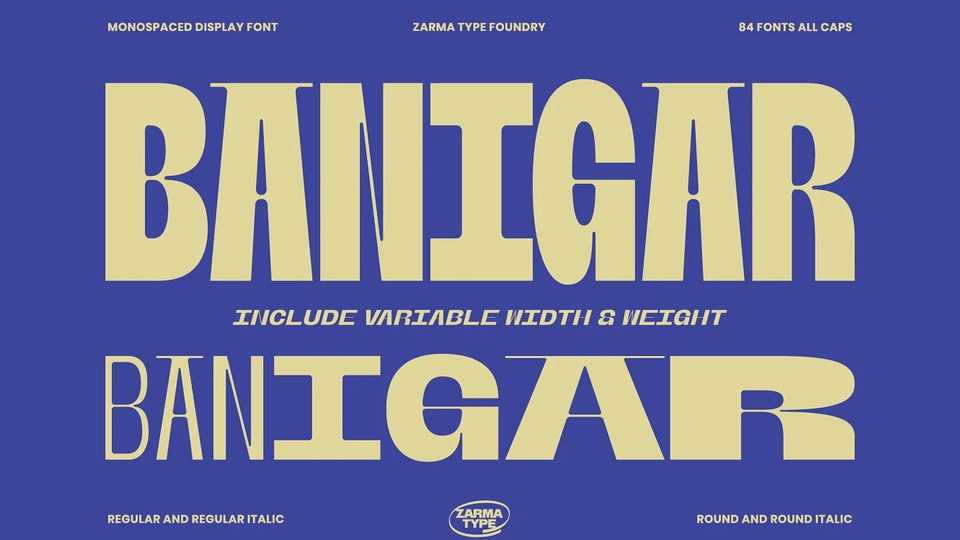
Download Banigar font, a modern display typeface that is perfect for creating designs that are both modern and confident. With consistent letter width and a high contrast between thick and thin strokes, Banigar is sure to grab your audience’s attention.
Designer: Zarma Type Foundry